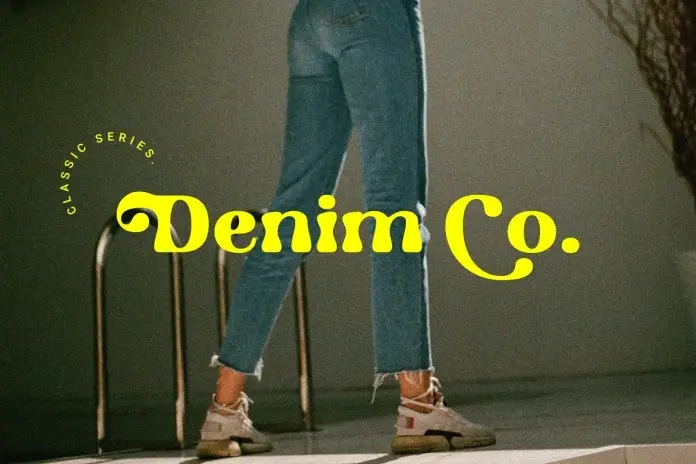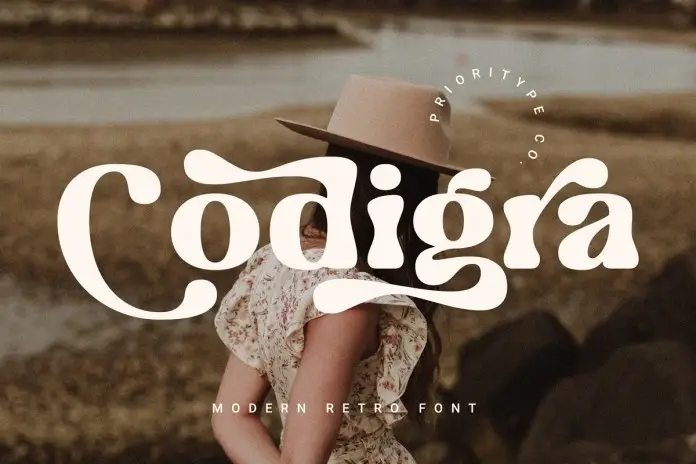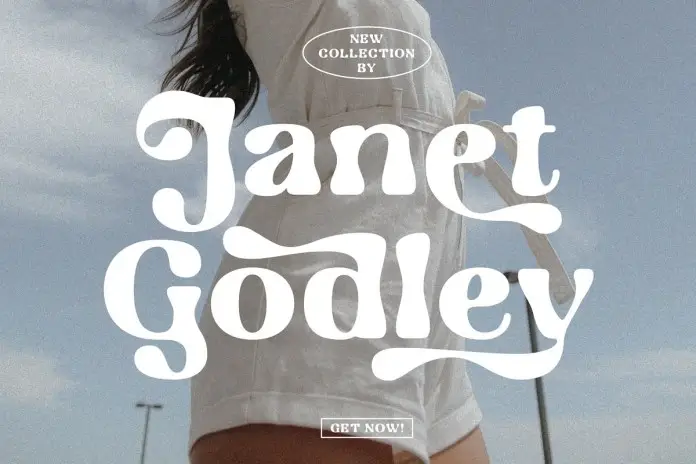
Codigra Display Font
The Codigra Display Font is a striking typeface designed to make a bold impact in any design project. With its unique character shapes and modern aesthetics, this font is perfect for branding, logos, and eye-catching headlines.
• Stylish display font with a contemporary design
• Uppercase and lowercase letters included
• Numerals and punctuation for complete typographic needs
• Ideal for web and print applications
• Utilize for promotional materials, posters, and social media graphics
• Combine with complementary fonts for a cohesive design